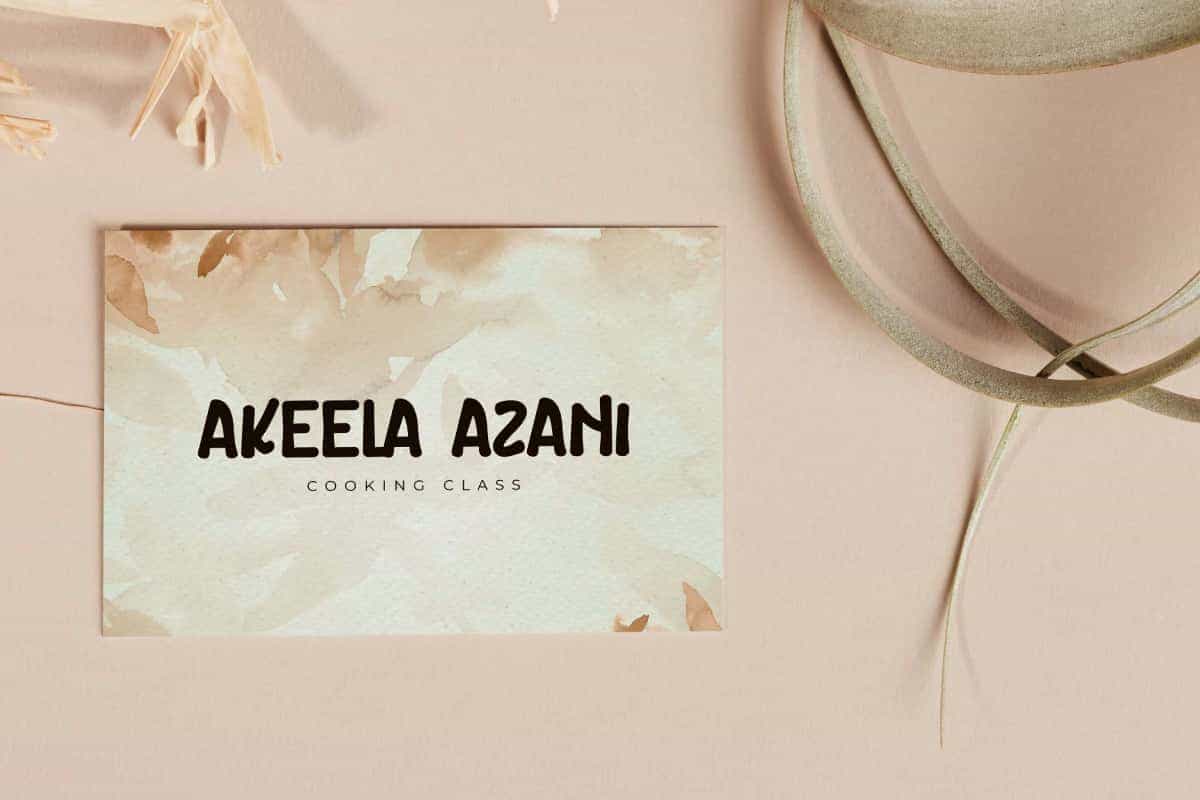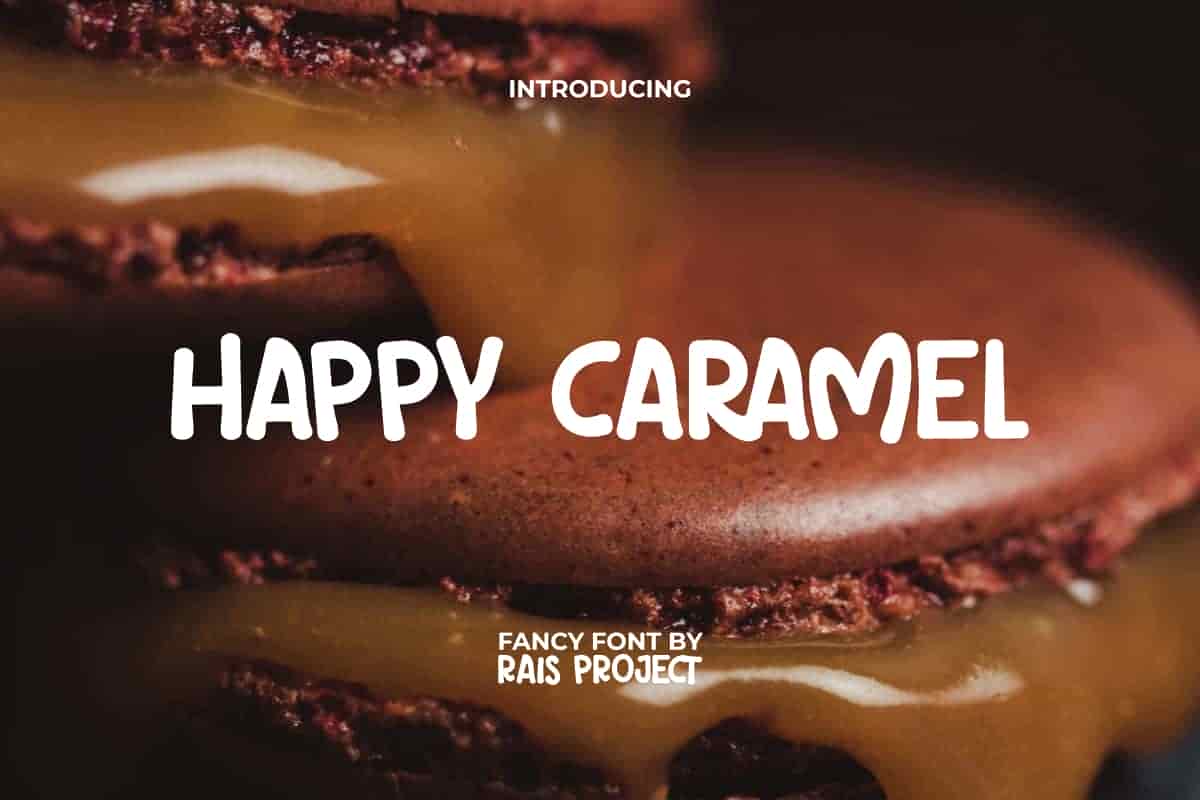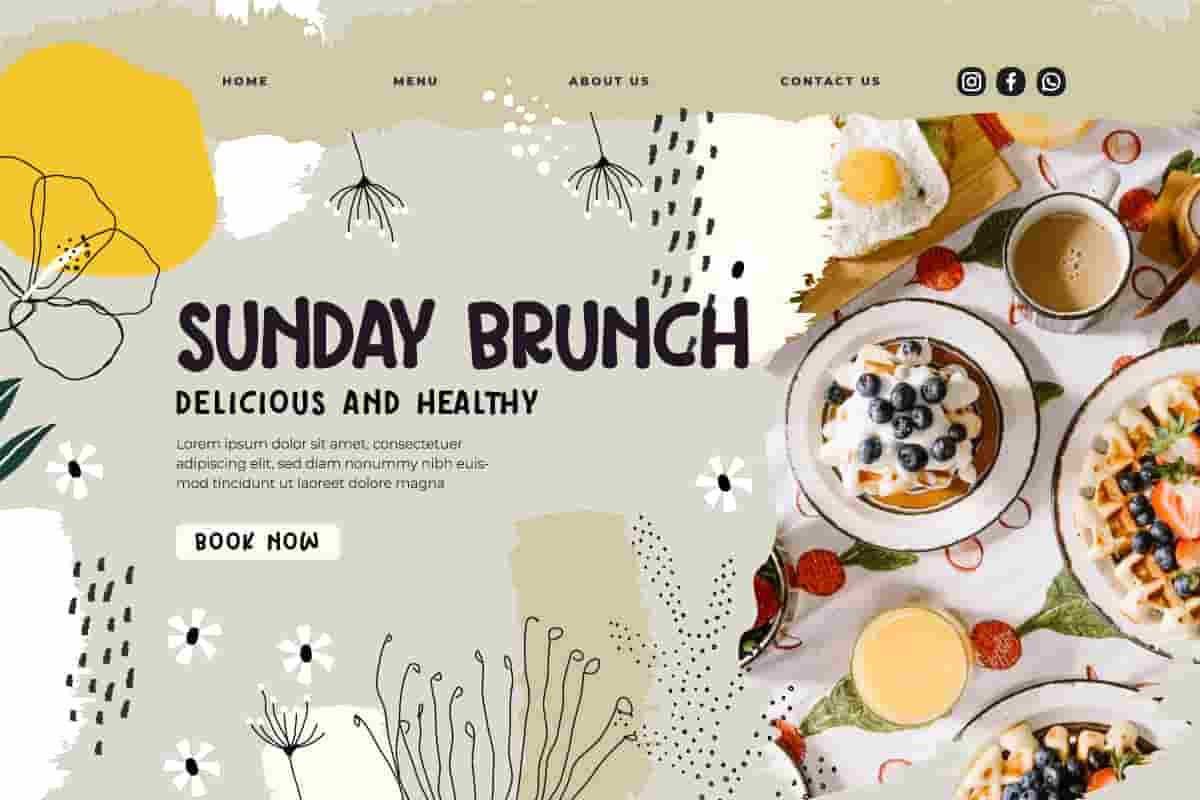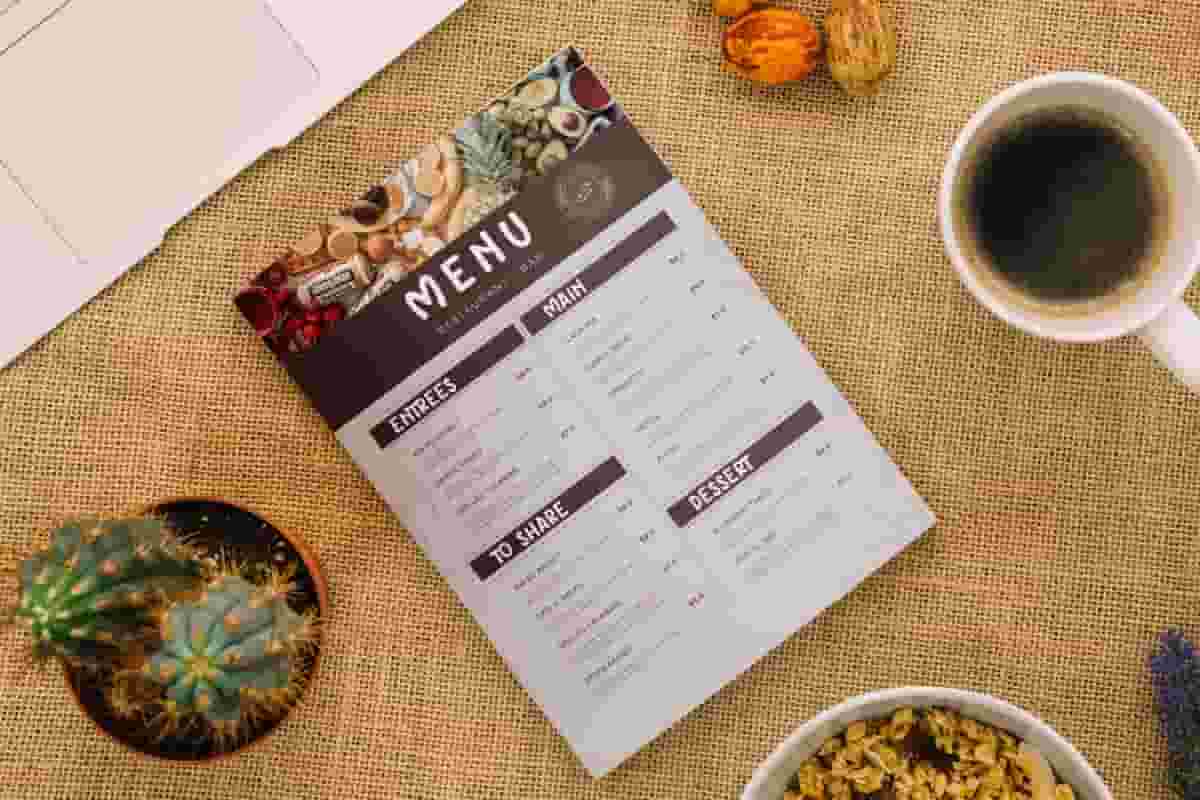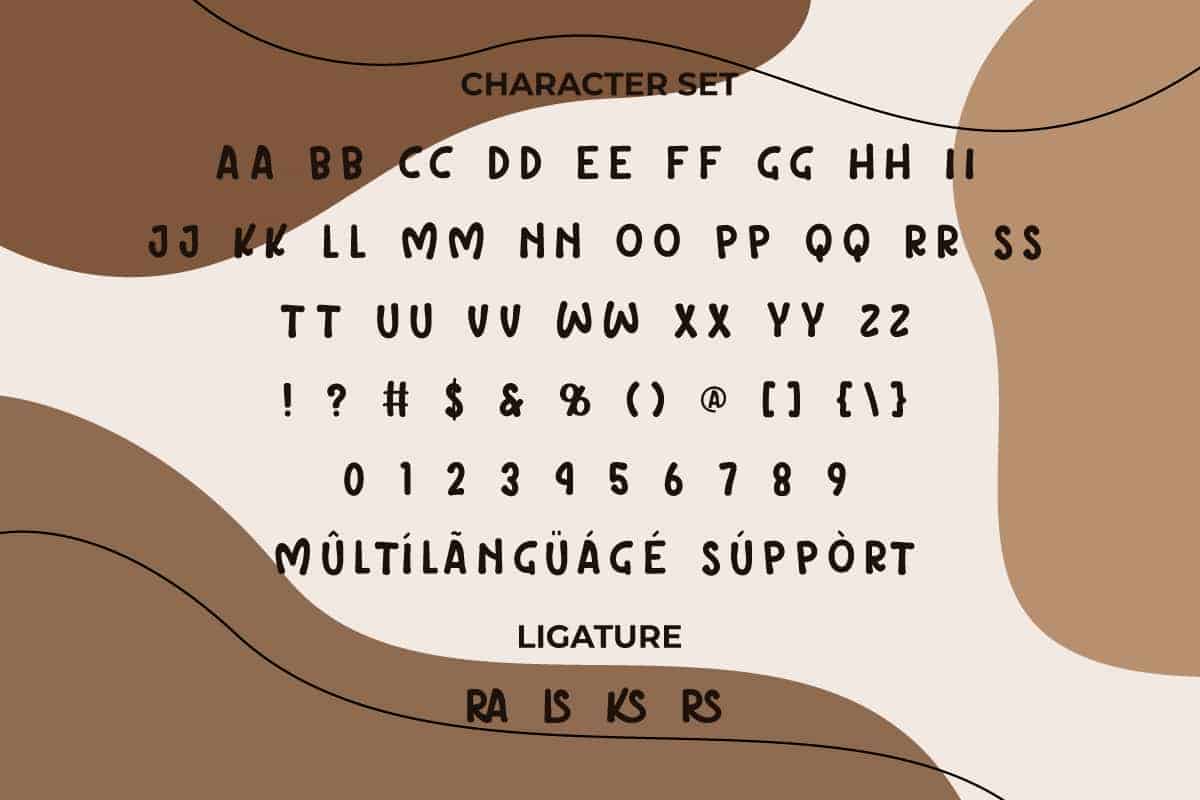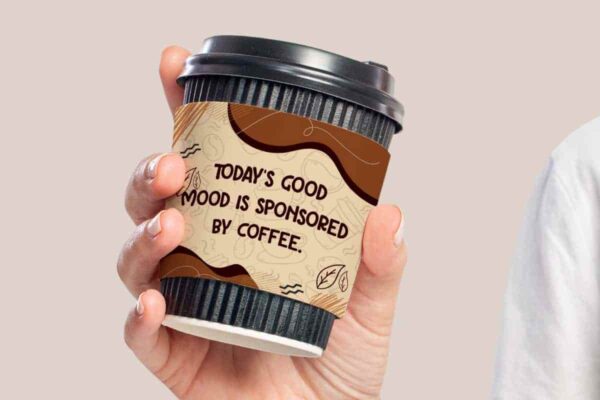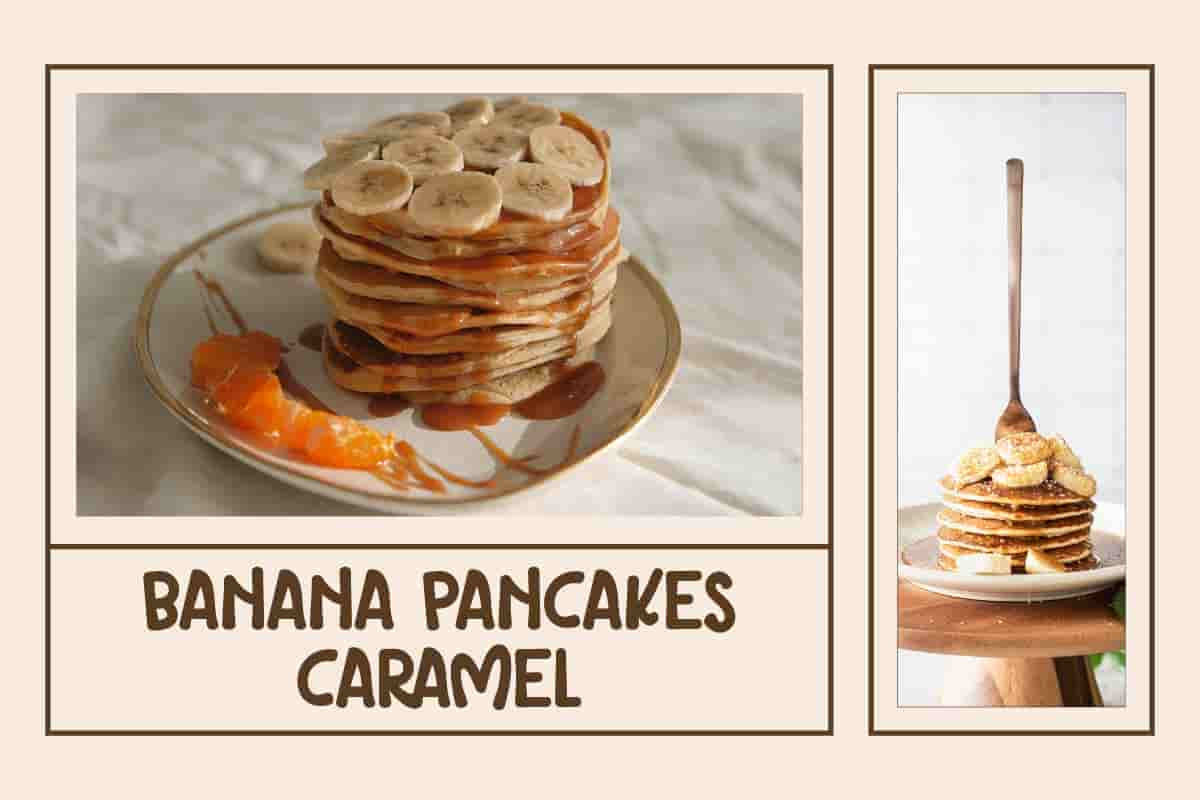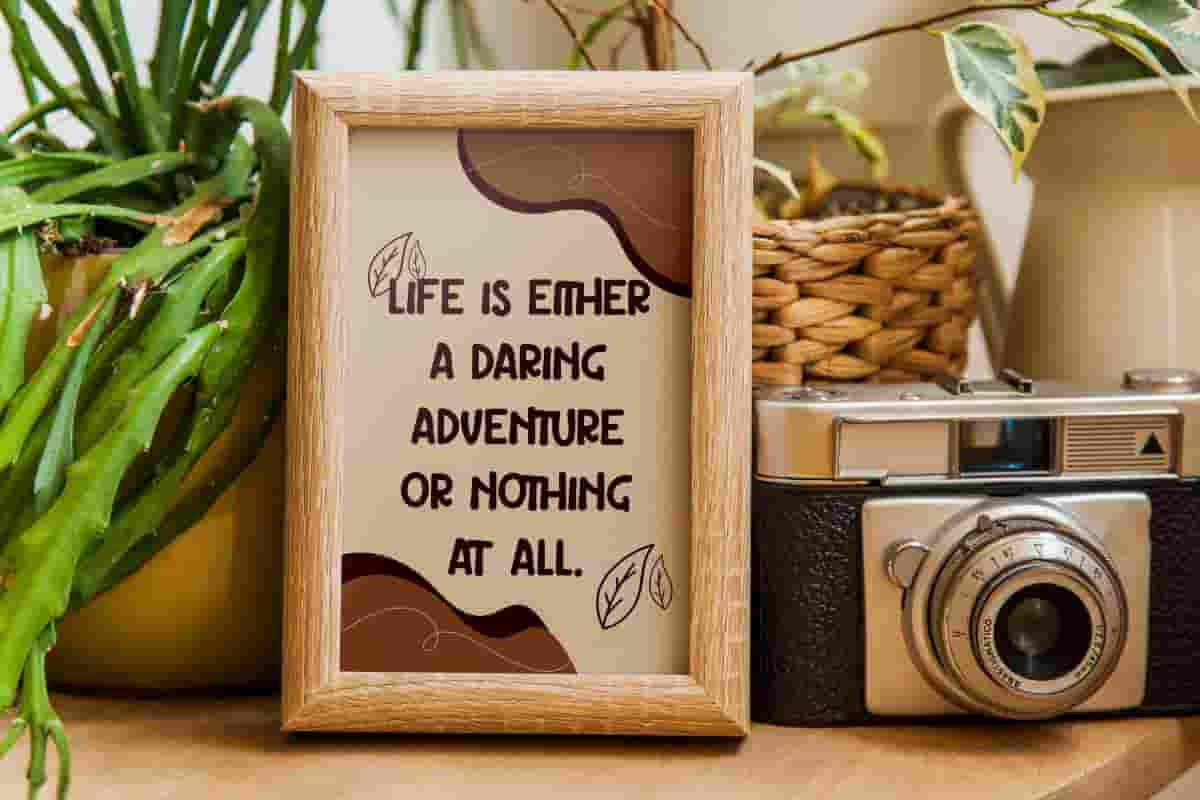
Happy Caramel Font
Happy Caramel Font is a cute fancy comic foody display font by RaisProject. Freshen up your designs with this adorable font, the more you look at it the more it will amaze you. Use this font right now and see how beautiful it is!
Happy Caramel Font is a cute fancy comic foody display font by RaisProject,It is a sweet handwriting display font.There’s never been limit to using it on your designs, such as advertisement, brand image, business card, custom design, invitation, magazine, menu, poster, product packaging, quote, web page, and more! You can see the demo font below, input any word you want so you can see what it looks like:
Happy Caramel Font includes a full set of includes full set of ALL CAPS for Uppercase and Lowercase Basic Characters, Numerals, Punctuation, Symbol, and Ligature. This adorable font will be suitable for various industries, such as bakery and pastry, cafe, event and party, kids stuff, movie, photography, printing, publishing, etc. What you get: